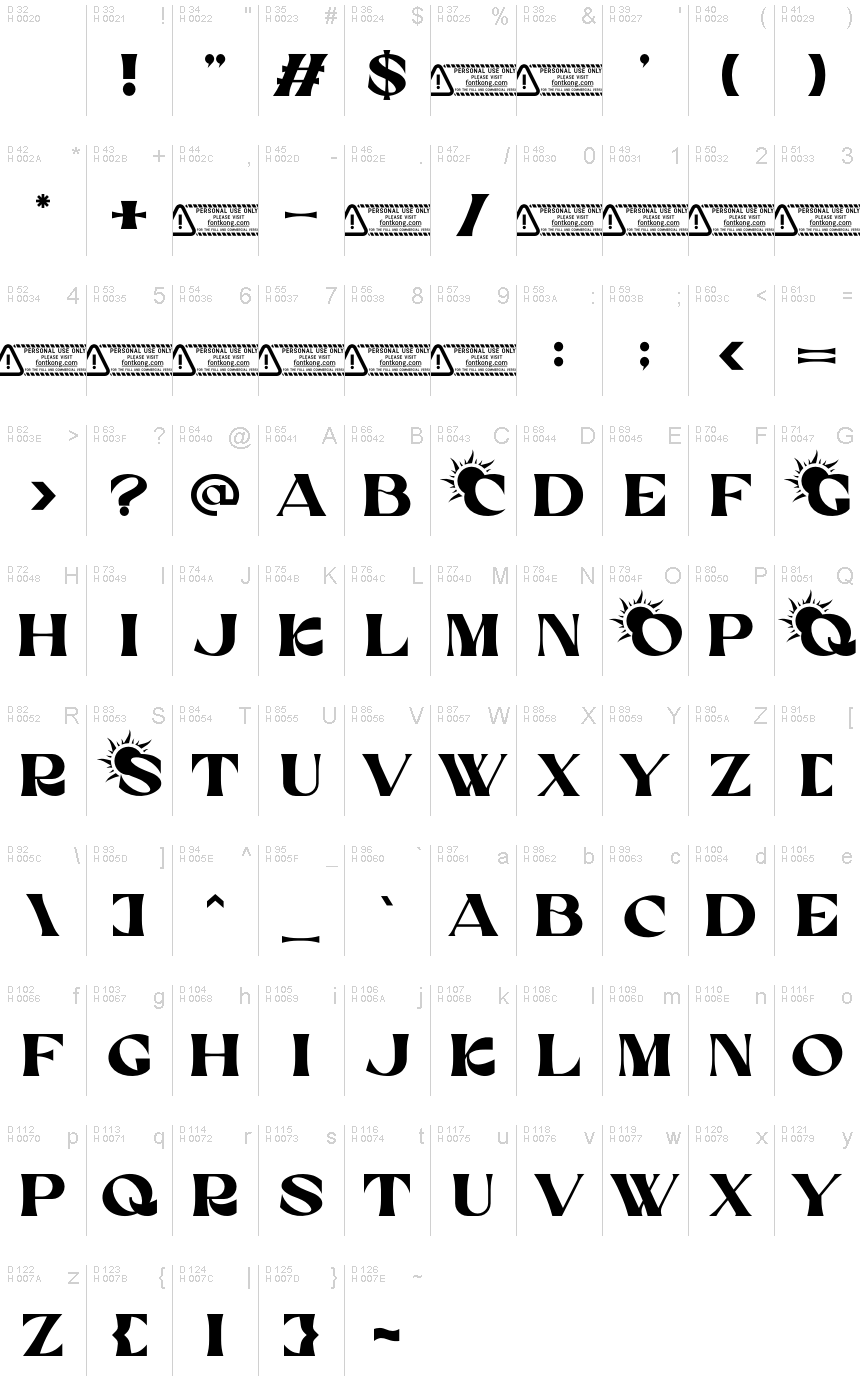
Summer font was created by Kong Font. Summer is an authentic bold decorative serif embraced by both smooth curves and sharp serifs, striking a balance between refined elegance and clean simplicity. Its high contrast strokes evoke a sense of drama while conveying a playful mood which makes your typographic results look engagingly creative.
Summer font is the best choice for display usage in posters, packaging, signage design. Also perfectly suitable for magazine headers, print materials or any multi-dimensional website presentation (i.e. eBooks or online courses). Summer can breathe more personality to every piece of artwork! Discover the endless delight and versatility that Summer brings to creative projects!